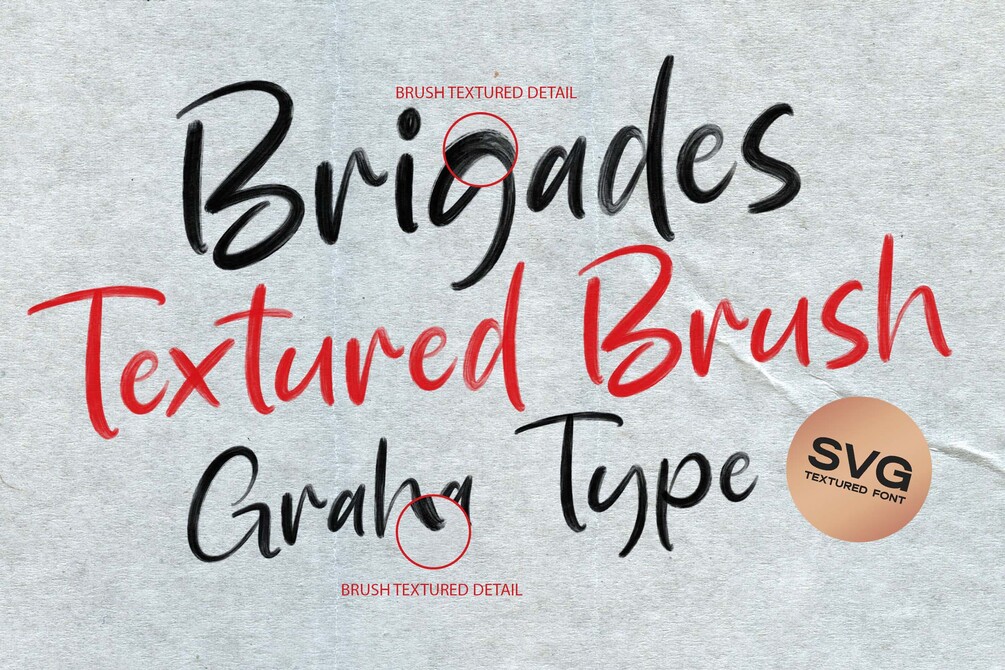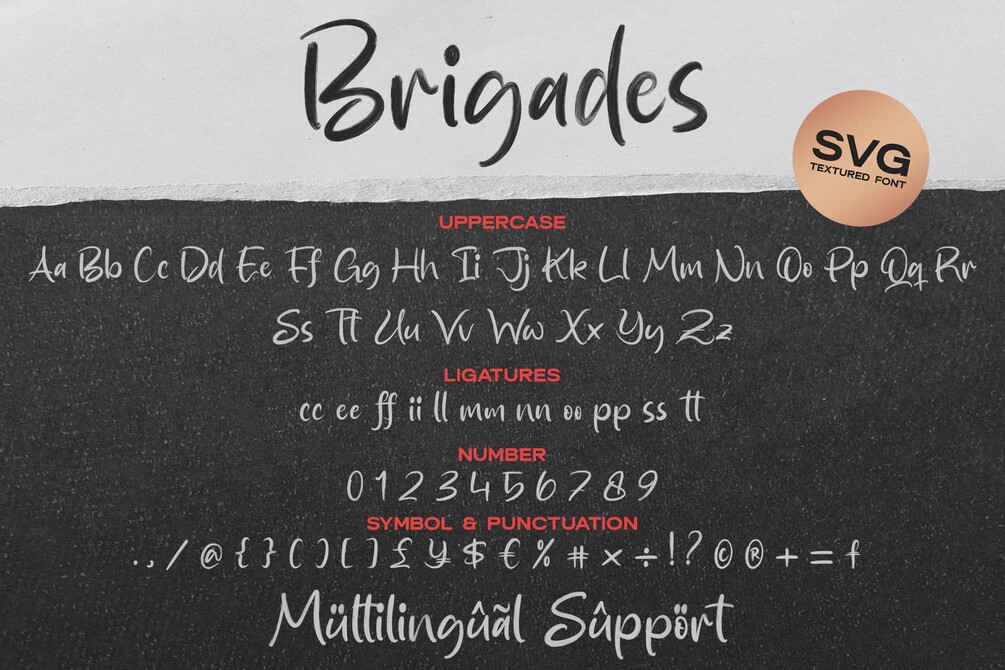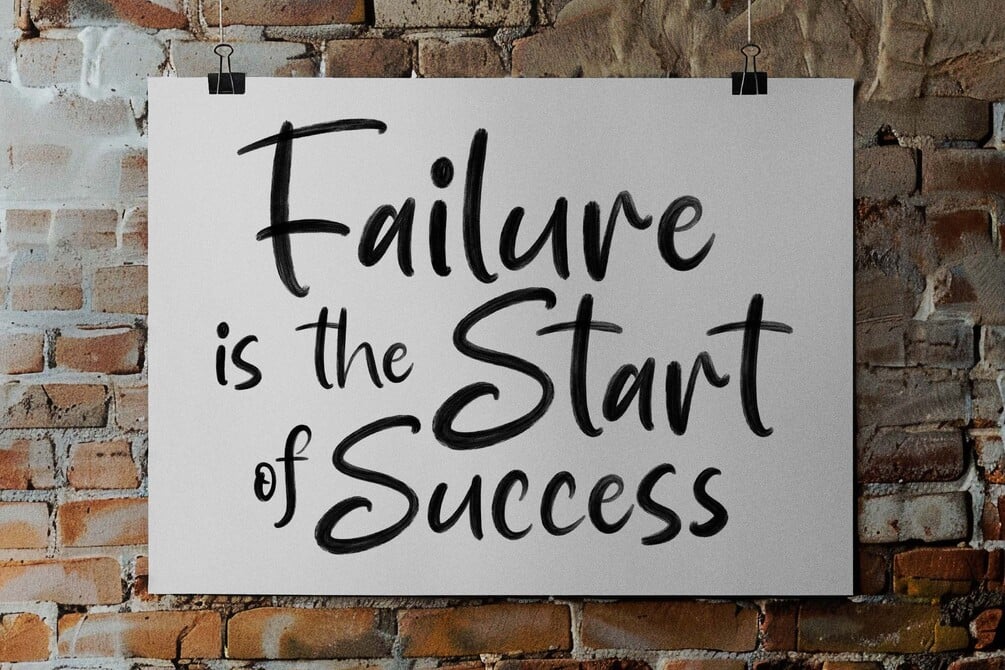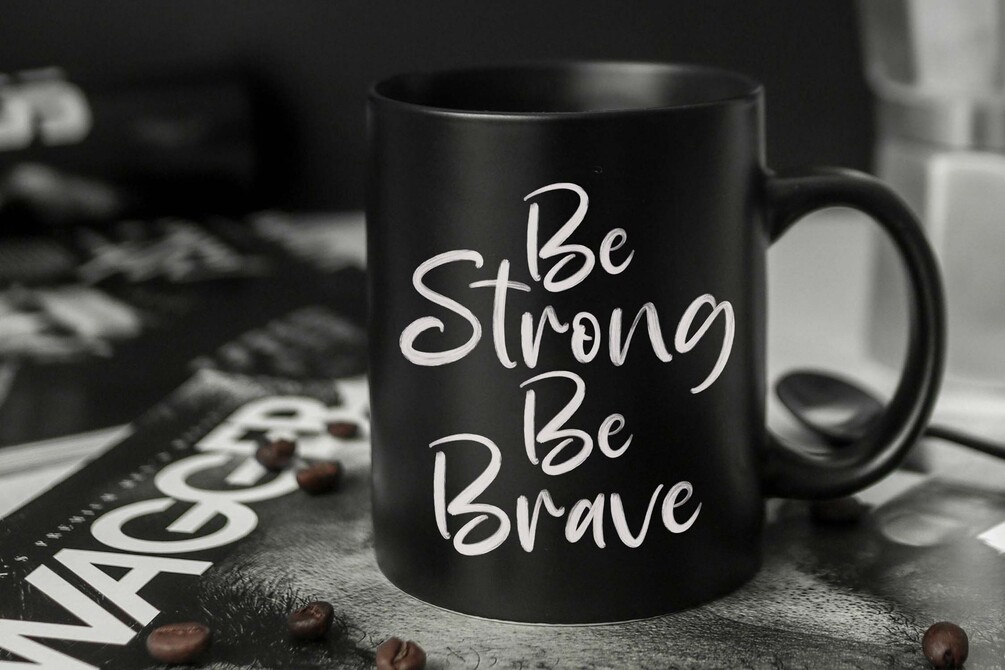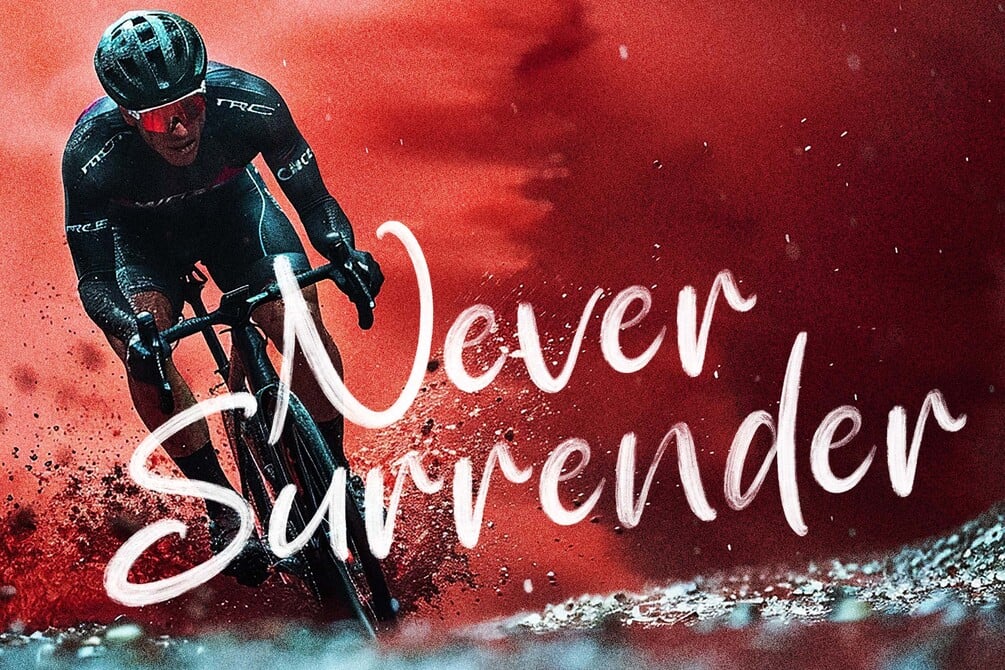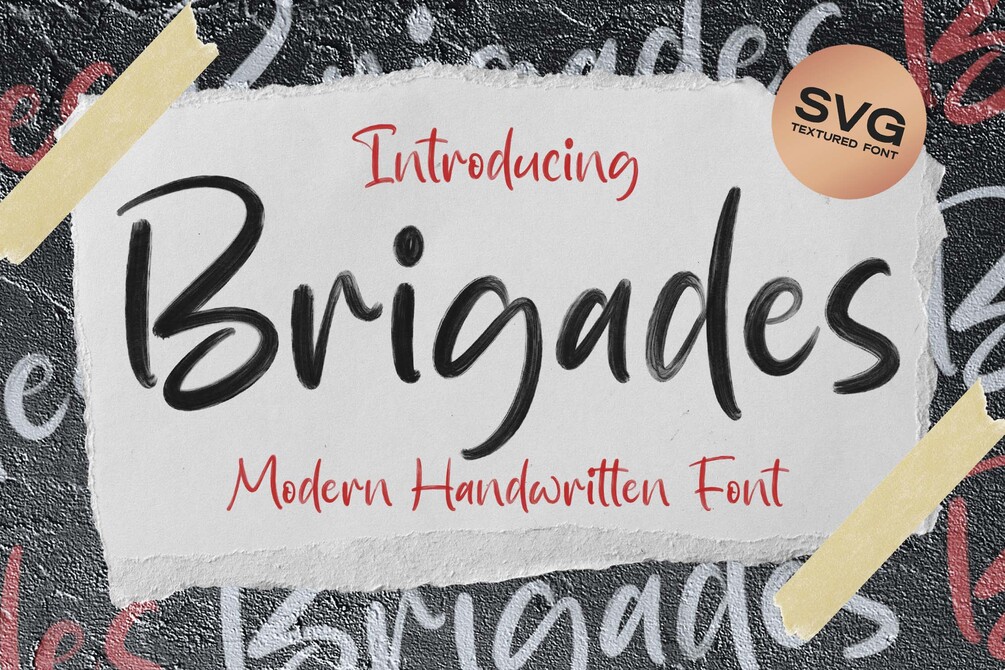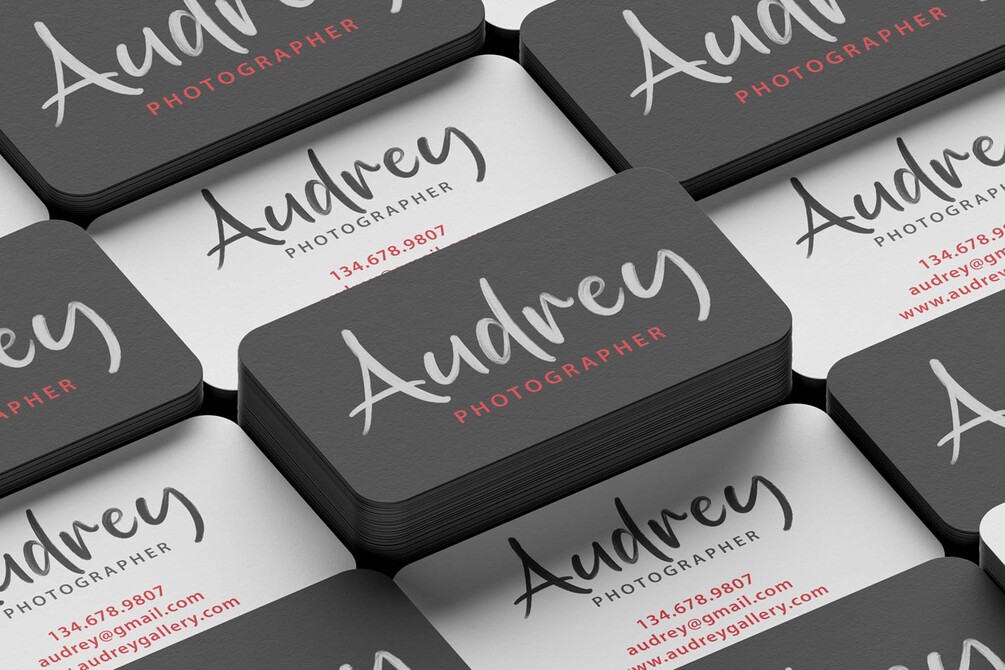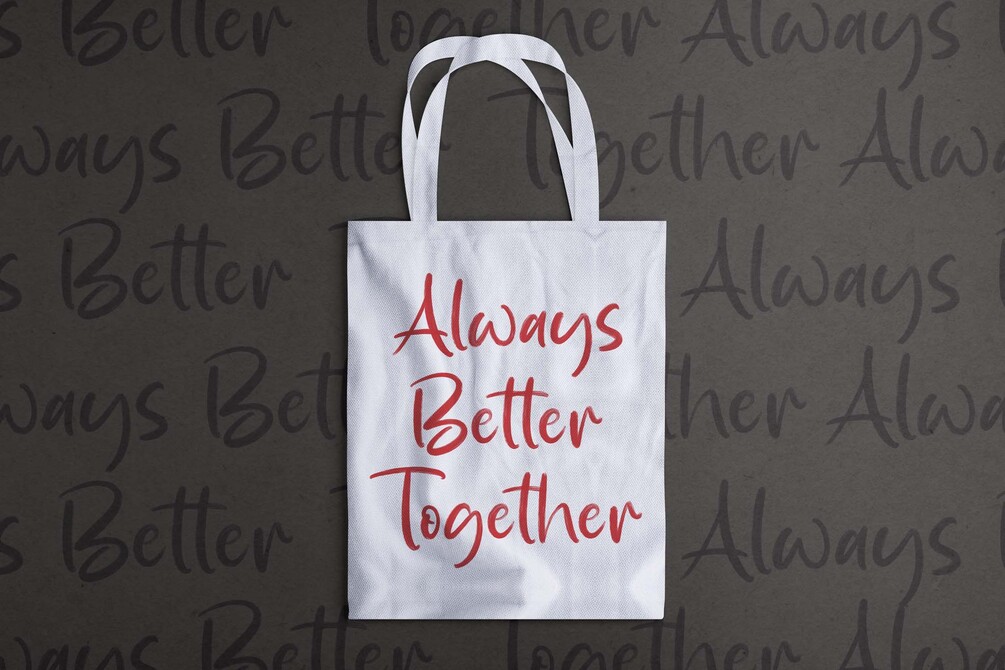
Brigades - Handwritten SVG Font
Brigades is a font designed with a textured brush style that captures the essence of hand-painted lettering. Each character features detailed brush strokes, providing a realistic and artistic touch.
Brigades is available in SVG (Scalable Vector Graphics) format, ensuring sharpness and clarity at any size. SVG format preserves the fine details of the brush texture, maintaining precision and quality whether the font is scaled up or down. This makes it ideal for both digital and print applications, delivering a professional and crisp result.